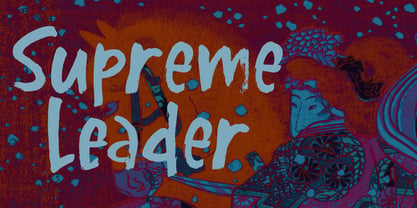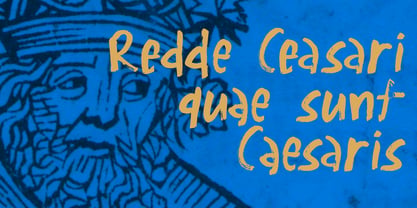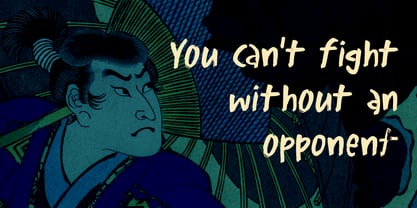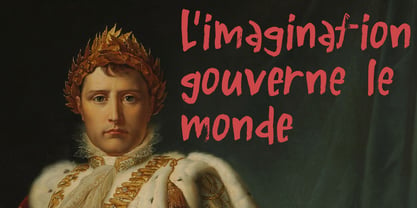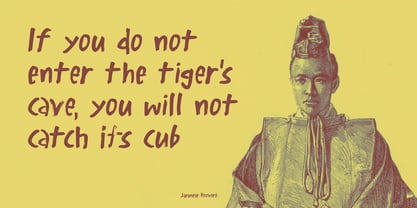
Supreme Leader Pro
by Hanoded
I was watching a science fiction movie with my son Boris the other day. It had a character in it called the ‘Supreme Leader’. I thought that title was hilarious, so I decided to name a font after it.
Supreme Leader is a handmade brush font. I created it using Chinese ink and an old brush I have been using for a while now. Supreme Leader comes with extensive language support and a full set of alternates for the lower case letter.
About Hanoded
Hanoded is run by Dutchman David Kerkhoff. His fonts are a mishmash of styles, as he just creates whatever pops into his head. You will find a lot of brush fonts in his collection, as his favourite tools are brushes and Chinese ink, with cartoon style fonts and script fonts complementing his repertoire. Aside from making fonts, David occasionally guides tours in far-flung places, renovates his '30's house and tries reasoning with his wife and (teenage) kids. Not an easy task!